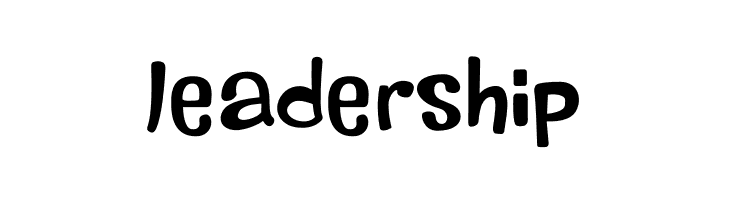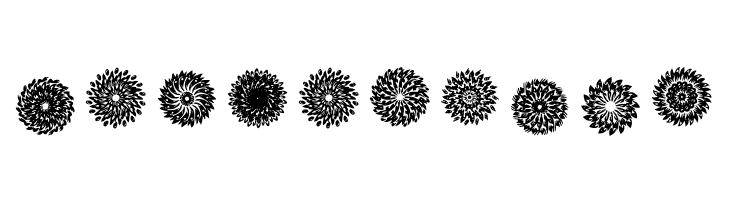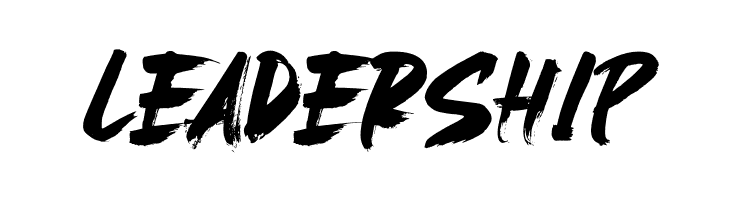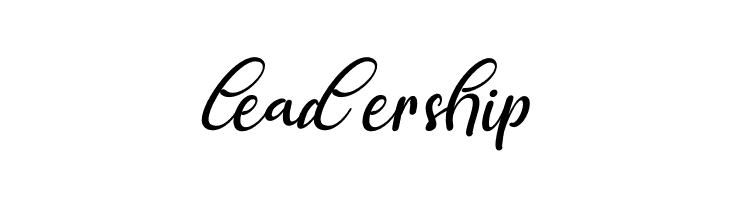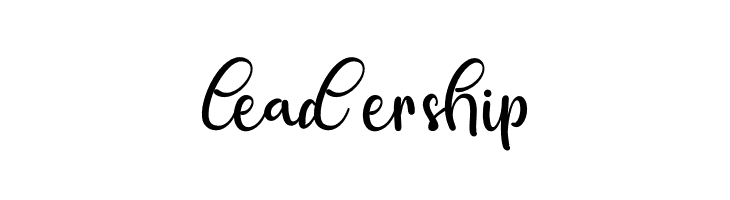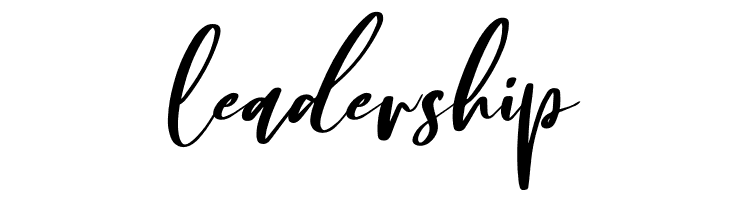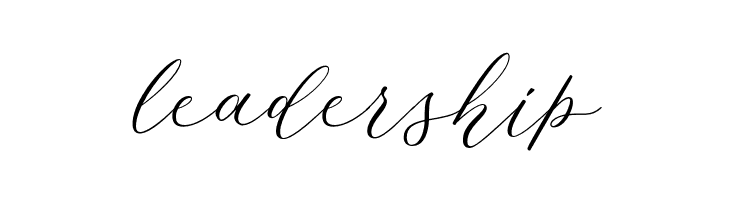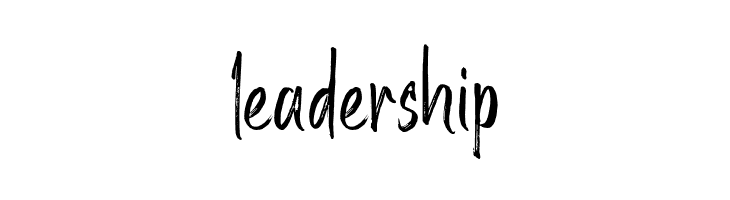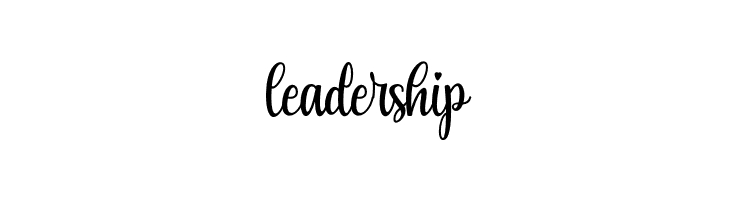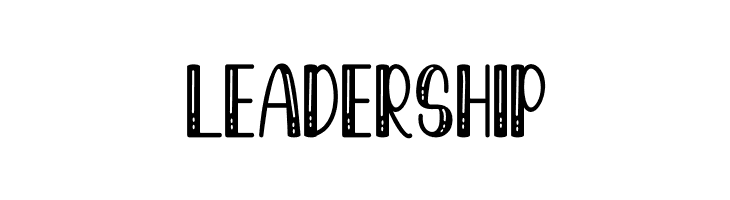
• Kitchen Christmas
A modern, decorative script font with tall, flowing letterforms and playful swashes.
• Kitschy Retro Regular
A playful, retro-inspired font with bold, rounded characters and a whimsical style.
• KOBAR FONT
A bold, energetic handwritten font with dynamic strokes and a lively appearance.
• Kobryan
A bold, dynamic script font with a slight slant and elegant curves.
• Koch Quadrat
A geometric, grid-based font with a modern, architectural style.
• Kolaka
A playful, hand-drawn outlined font with a whimsical and casual style.
• Kolgimba
A bold, high-contrast font with elegant curves and unique character designs.
• Kolgimba Italic
A dynamic and elegant italic font with smooth, flowing curves and slightly condensed letterforms.
• Kollesteroly
A stylish and fluid handwritten script font with elegant uppercase flourishes.
• Kolt Vox
A dynamic, hand-drawn font with irregular strokes and an edgy feel.
• Koobang
• Koofinee
A playful, handwritten script font with fluid, connected characters.
• KOOPERS Regular
• KR Birthday Letters
A bold, festive font with candle-like accents, perfect for celebrations.
• KR Birthday Letters
A bold, festive font with candle-topped letters, perfect for celebrations.
• KR Cane Letters
A playful, candy cane-inspired decorative font with bold, striped letters.
• KR Cane Letters
A decorative font with a candy cane striped pattern, perfect for festive designs.
• KR Love Letters
A bold, heart-themed decorative font with playful and romantic elements.
• KR Star Letters